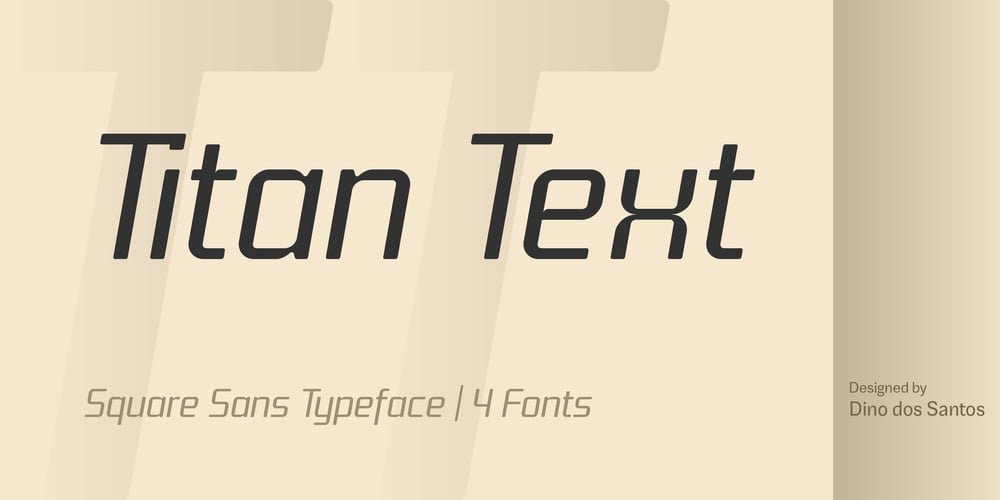
Titan Text OT Font Family was designed by Dino dos Santos and published by Monotype. Titan Text OT contains 4 styles and family package options. Originally designed in 2003, TitanText now becomes TitanTextOT and it’s available in Regular, Italic, Bold and Bold Italic. Includes plenty of OpenType features, like SmallCaps, Alternates, Ligatures and Swashes.